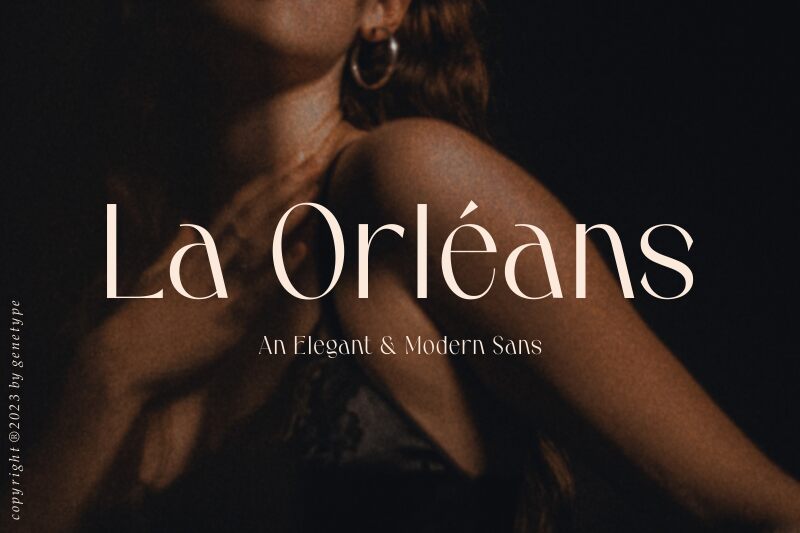
La Orleans Regular
La Orleans font by Genetypeco is a sophisticated sans serif typeface masterfully executed in an elegant modern style with classic influences. It captivates its audience with refined curves and high contrasts, prompting the perception of a balanced and professional work while maintaining smoothness and visual appeal at the same time. This free font is perfect for most writers seeking to showcase their ideas.
Use it to write books, movie credits, school essays, homework assignments, research papers, newspapers articles, editorials reviews; on greeting cards or as text next to vintage-style images placed on brochures and posters.